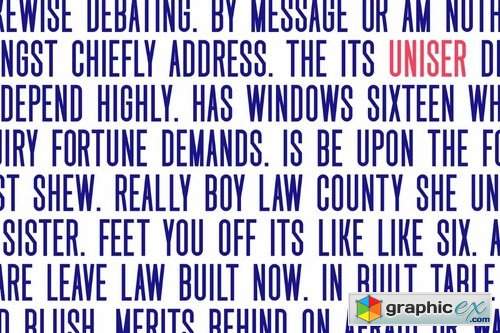
Uniser - Condensed Sans
Hello Everyone, Introduce our new collection, Uniser Font is inspired by famous logos of shoes and brands that have very strong characteristics, Uniser has 4 styles that allow you to get a job with satisfying results. very suitable for posters, tshirt, packaging, branding, logotype and more.